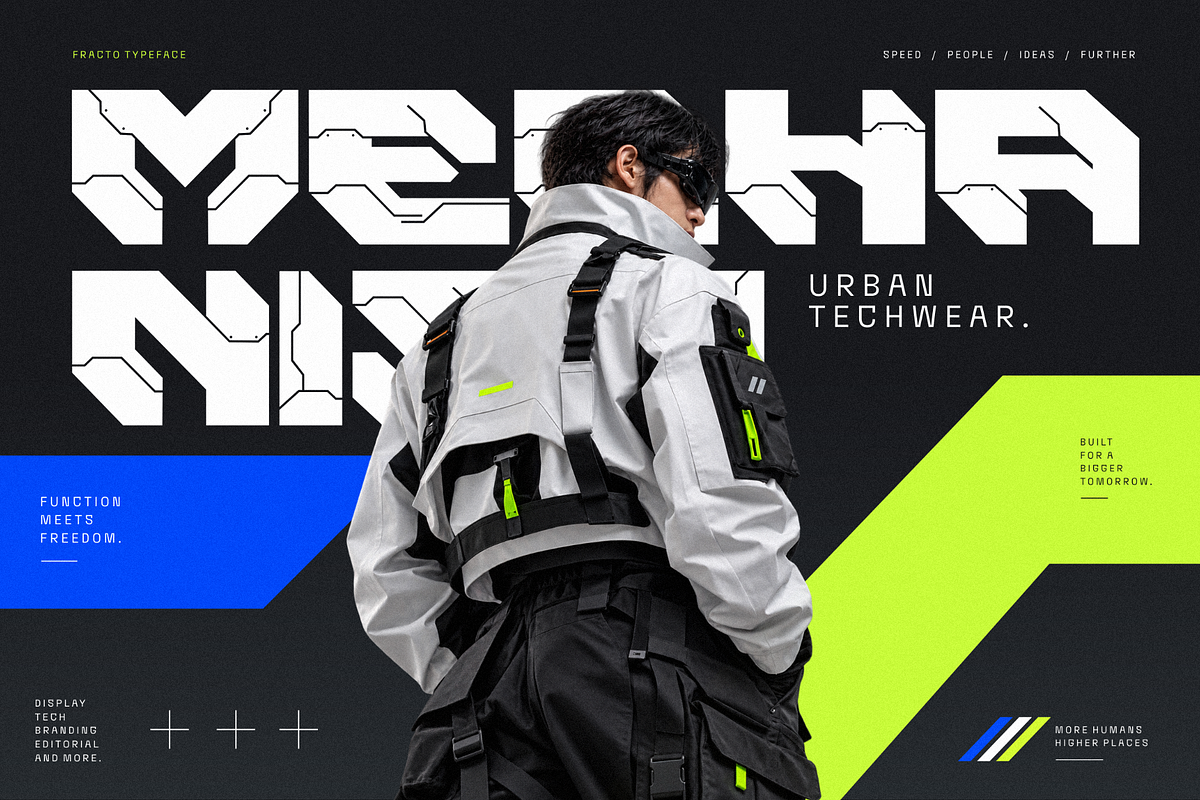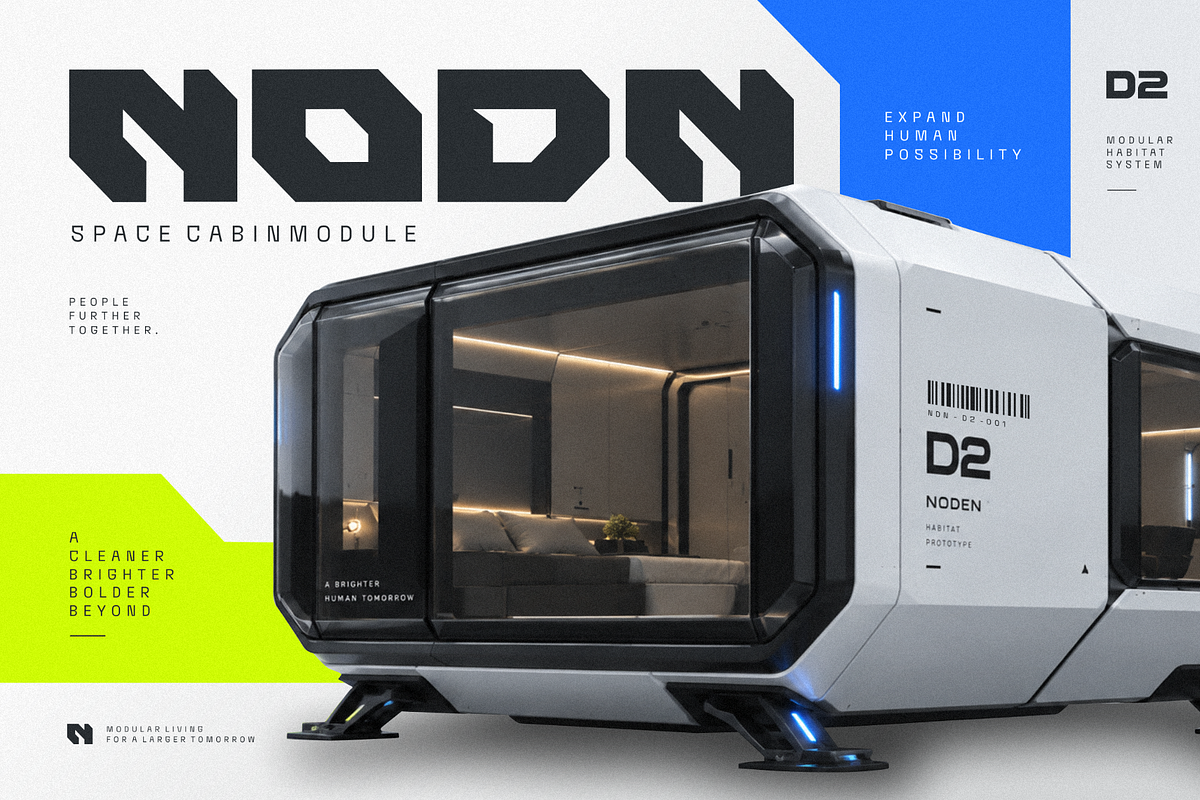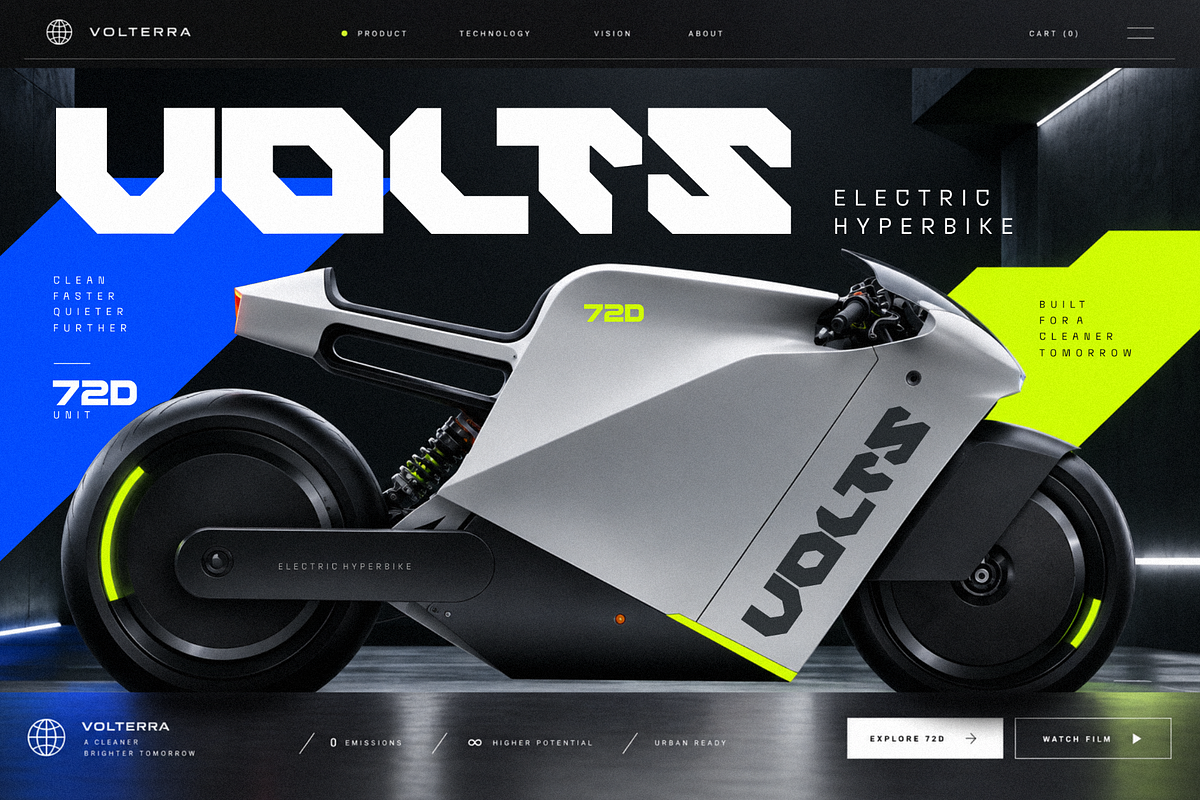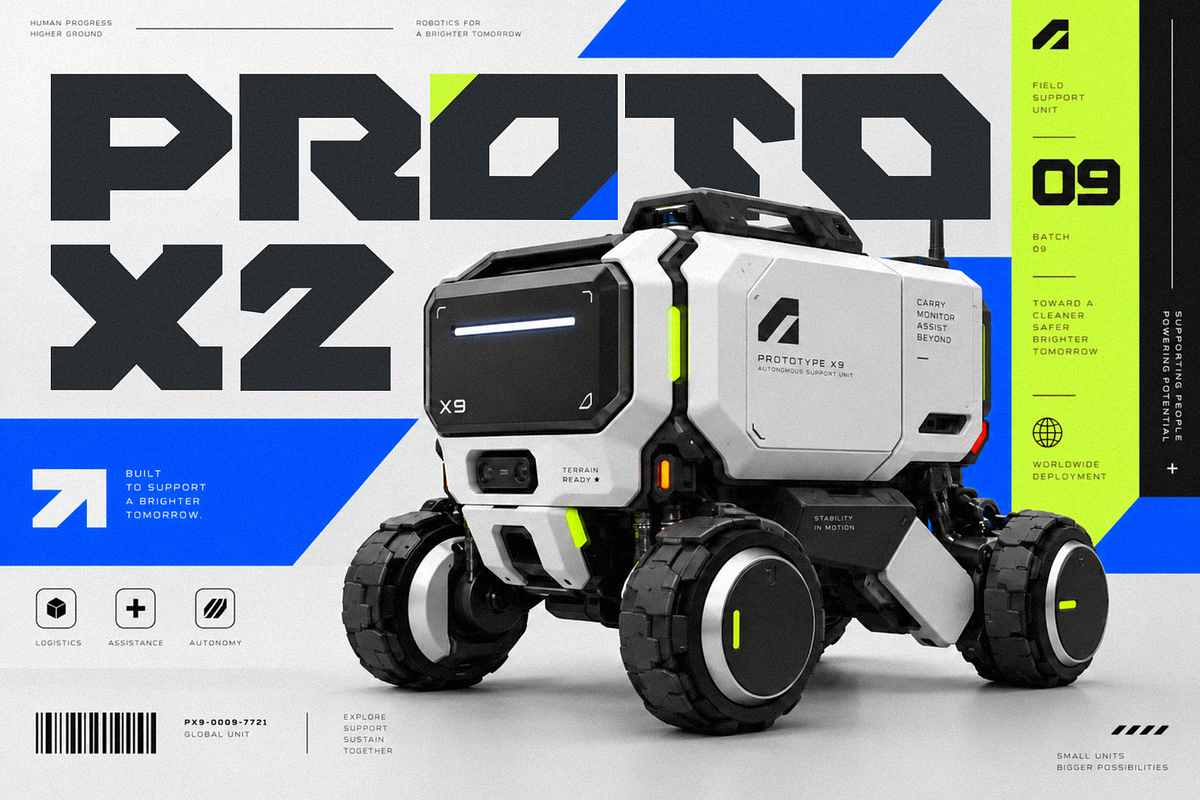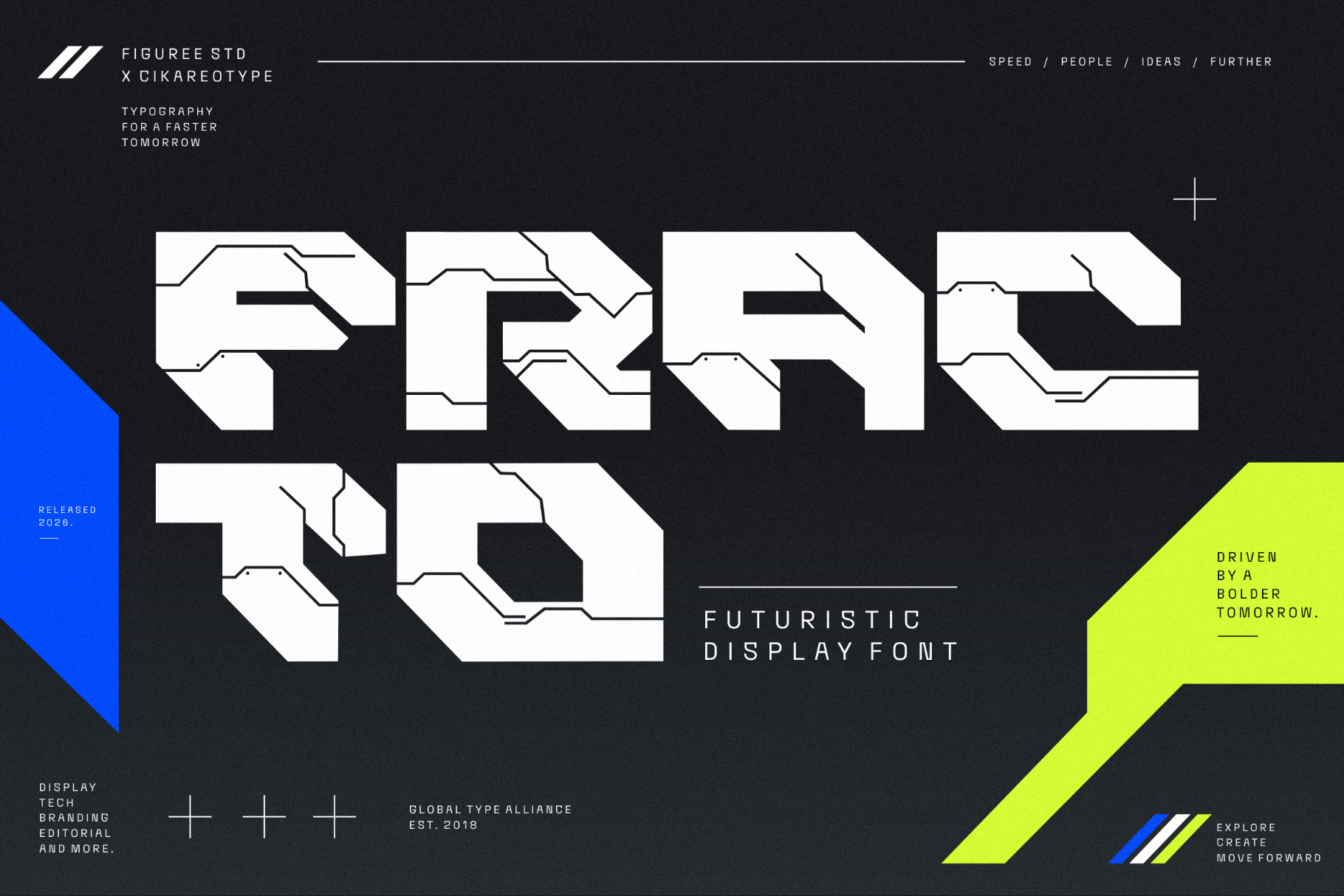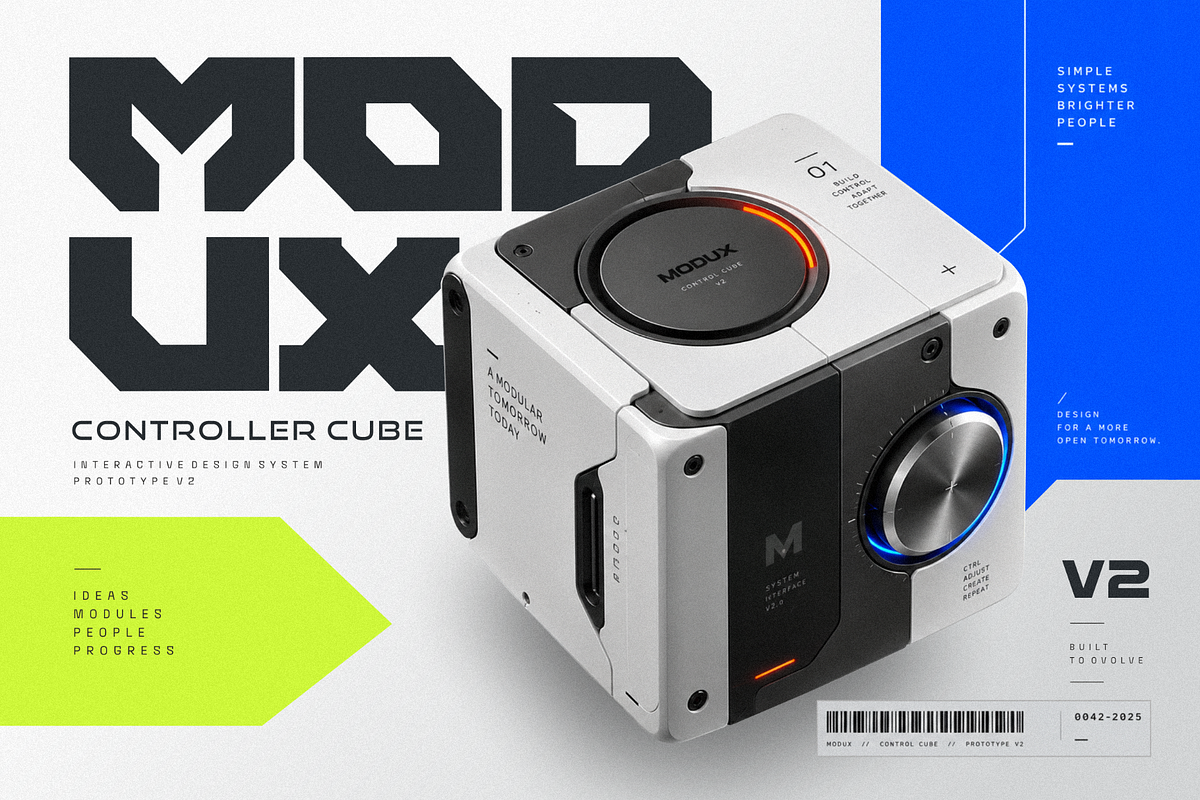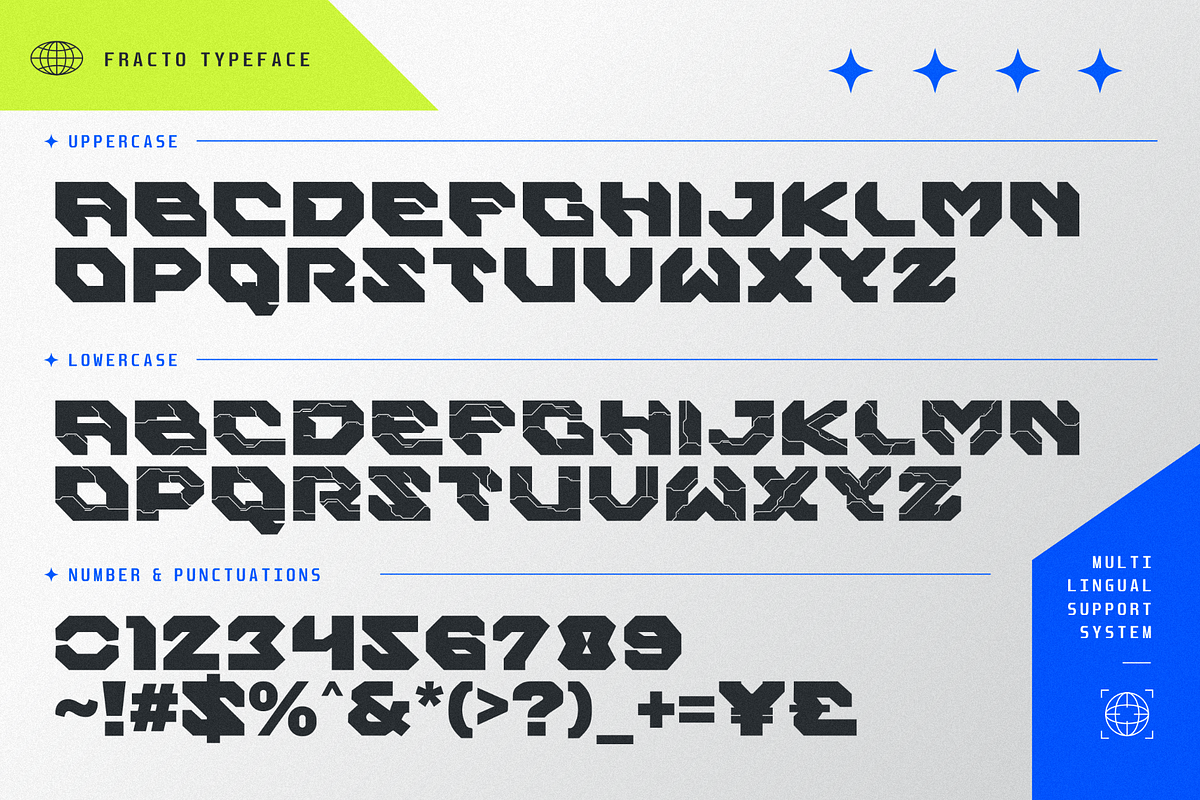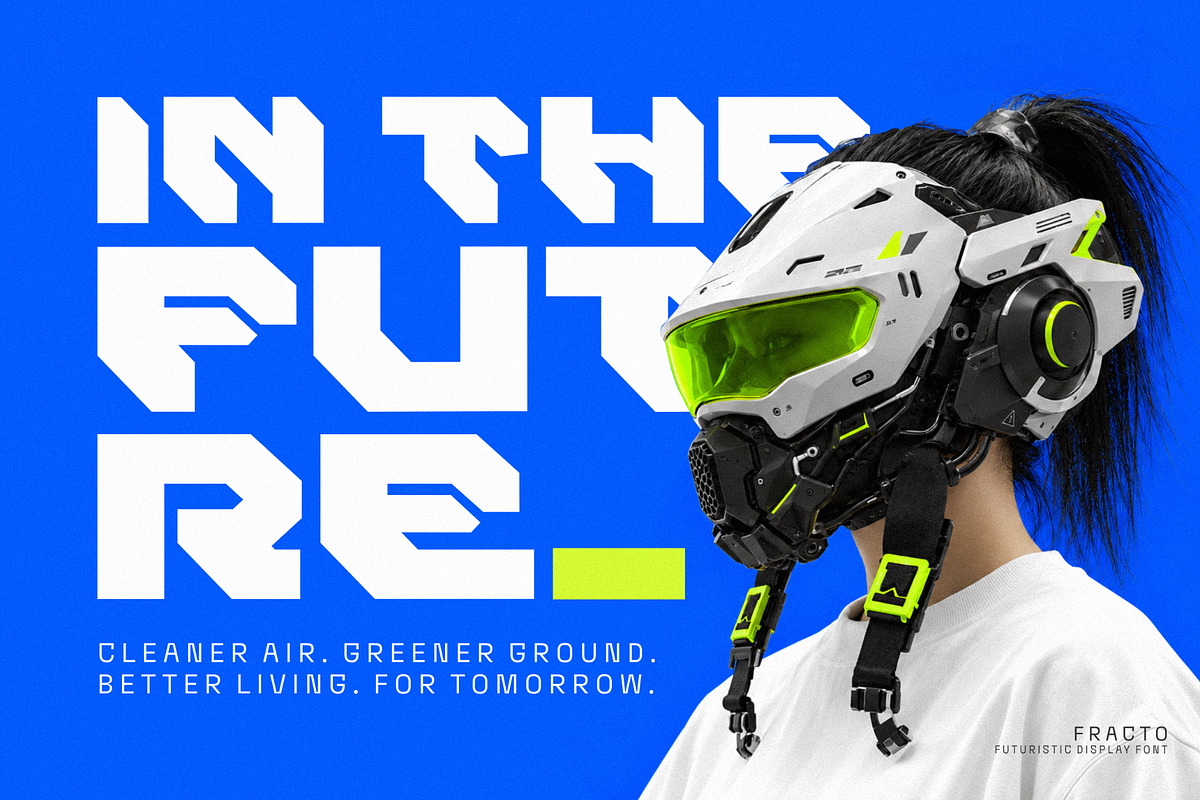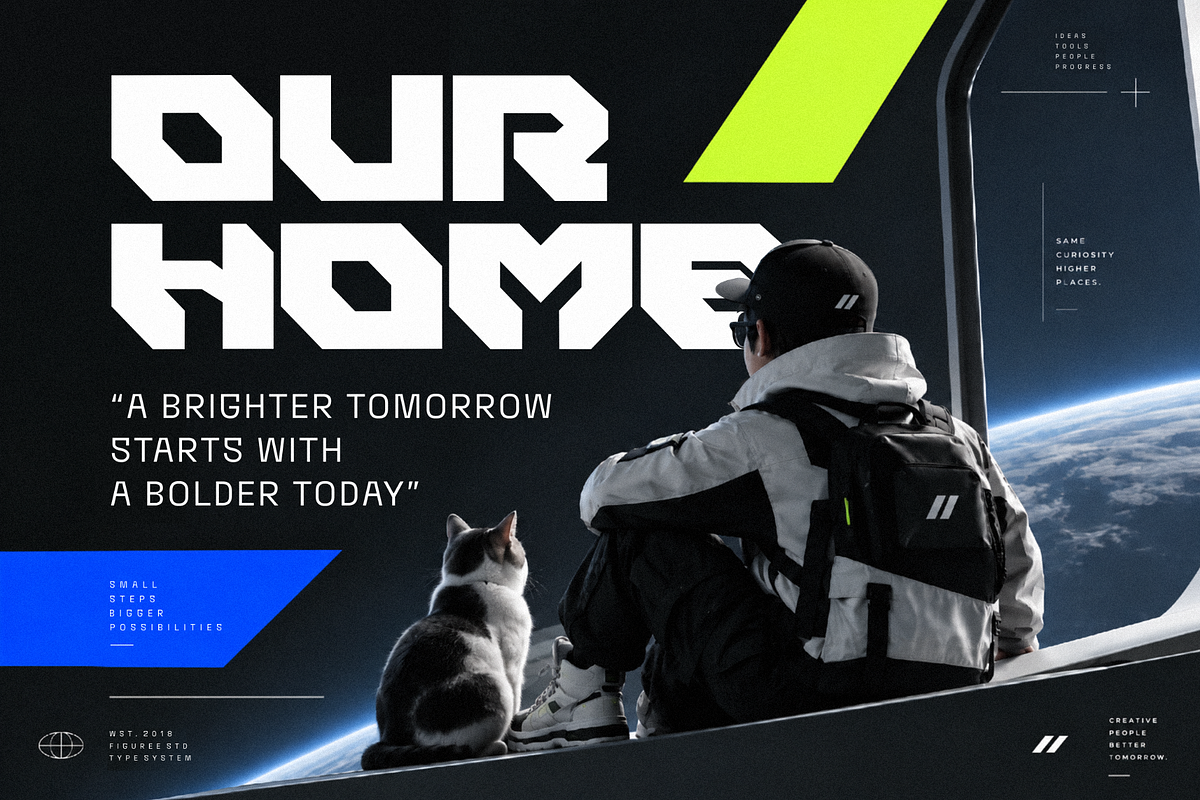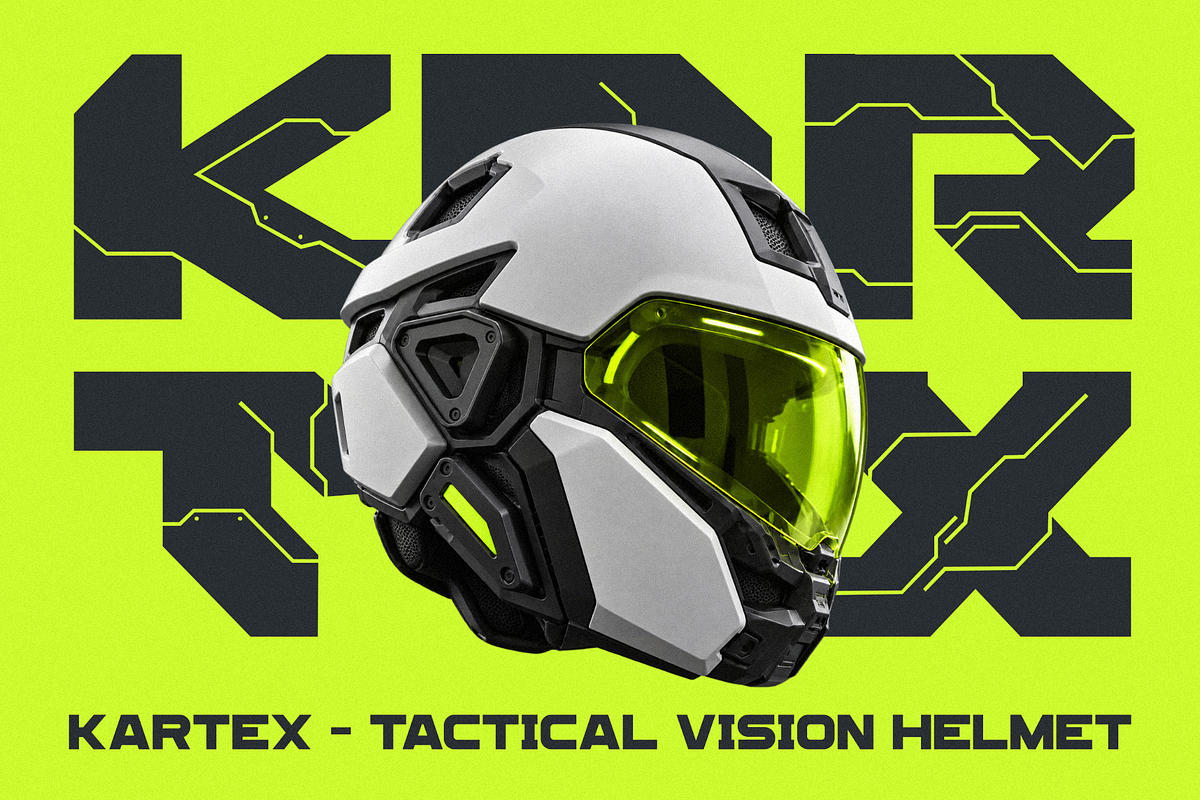
Fracto - Futuristic Display Font
Fracto – Futuristic Display Font is a sharp, forward-looking typeface created for visual projects that need a strong technological and sci-fi atmosphere. Its distinctive letterforms bring structure, energy, and a contemporary futuristic character to headlines, titles, posters, interfaces, and digital compositions.
Built for display typography, Fracto works especially well when text becomes a major visual element. Use it for science fiction posters, technology presentations, game graphics, esports visuals, digital campaigns, YouTube thumbnails, album artwork, event graphics, futuristic editorial layouts, and experimental typography. Its recognizable shapes help large titles establish a clear visual direction without requiring complicated supporting elements.
The combination of uppercase and lowercase characters gives designers flexibility when building typographic hierarchy. Uppercase letters can create commanding titles and compact compositions, while lowercase characters provide additional options for subtitles, secondary messages, and mixed-case layouts. Numbers, punctuation, and symbols expand its usefulness for dates, scores, specifications, interface-inspired graphics, and information-heavy compositions.
Fracto also includes multilingual support, making it suitable for projects that require an extended range of Latin-based characters.
Futuristic display font with a distinctive sci-fi character
Numbers, punctuation, and symbols
Strong presence for large headlines and titles
Suitable for technology and science fiction themes
Works across print, digital, and web-based projects
Fracto gives designers a straightforward way to introduce a futuristic visual language into typography-led compositions. Instead of relying entirely on additional effects or complex graphics, its letterforms can establish the technological direction of a layout from the first headline.
Its display-focused proportions make it particularly useful for posters, title screens, presentation covers, game graphics, video thumbnails, event announcements, and digital artwork where typography needs to occupy a prominent position.
The character set also makes Fracto flexible beyond single-word titles. Designers can combine uppercase, lowercase, numbers, punctuation, and symbols to develop complete compositions while maintaining a consistent futuristic aesthetic. Multilingual support further expands its potential across international creative projects.
Create a Strong Futuristic Visual Direction
When your project needs typography that immediately communicates technology, science fiction, gaming, digital culture, or futuristic concepts, Fracto provides a focused visual foundation. Build oversized headlines, experimental poster layouts, dramatic title sequences, tech-inspired graphics, and digital compositions around its distinctive forms. From a single headline to an entire typography-driven layout, Fracto Futuristic Display Font helps turn ordinary text into a defining part of the visual concept.